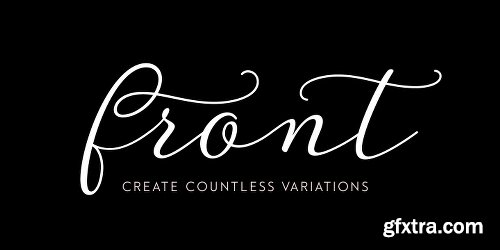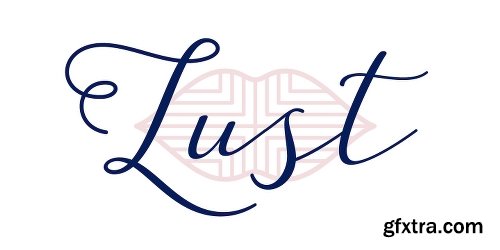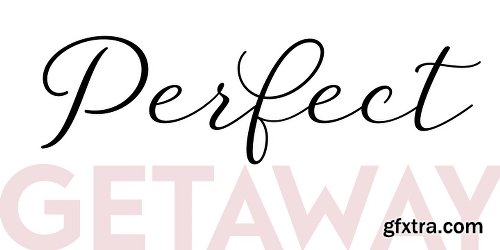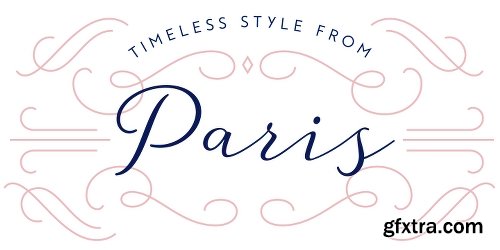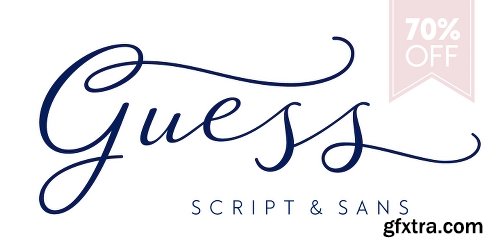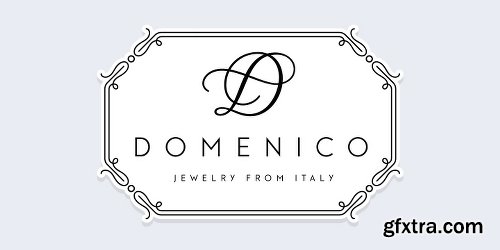
- Guess is a versatile, connecting script, designed to convey elegance and style. It is slender, feminine and friendly, let alone sexy. Guess will work perfectly for fashion, e-commerce brands, trend blogs, or any business that want to appear classy and chic.
- The font is ideal for high-end logotypes and magazine headlines, but let’s not forget greeting cards, invitations, posters, ads and the various web usages.